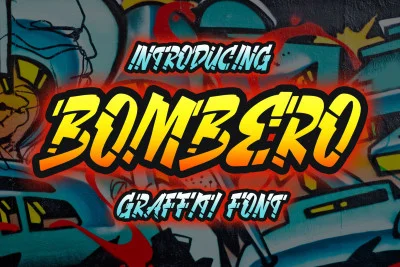
Bombero Graffiti Font
Please note that Bombero Graffiti Font must be purchased for commercial use. You are welcome to download and test this font for personal and non-commercial projects at no cost. This powerful typeface is perfect for a wide range of urban and street-inspired design applications, including high-impact T-shirt designs, dynamic music album covers (especially for Hip-Hop and punk genres), bold street art projects, energized marketing campaigns, extreme sports branding, and video game title screens that demand a raw, authentic edge.
The reason Bombero Graffiti Font is genuinely exciting is its raw, visceral energy and authentic replication of genuine street-style spray paint lettering. It successfully captures the rebellious spirit, dripping edges, and spontaneous flair of true graffiti, immediately injecting a powerful, urban attitude into any project. This font is a must-have for designers looking to break away from sterile, corporate aesthetics and embrace a vibrant, counter-culture look. Its inherent boldness and irregular baseline create titles that feel alive and completely unfiltered.
The Bombero Graffiti Font family typically consists of a single, highly detailed display weight (e.g., Regular or Marker Style) that maximizes its authentic, handmade feel. Sometimes, an alternate character set or additional stylistic glyphs are included to enhance the realistic, "dirty" look and avoid repetition when setting large blocks of text. Unleash the grit and impact of the streets in your designs by getting your Bombero Graffiti Font today.